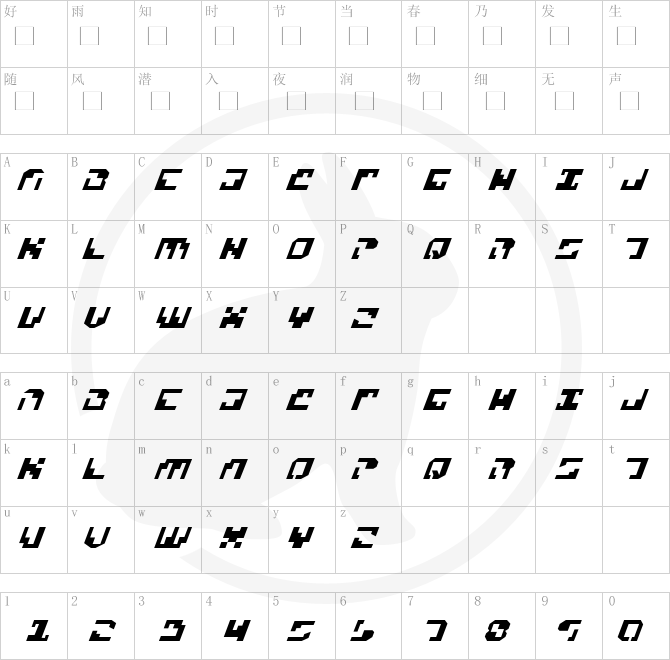
- Font Name:Xenophobia Italic
Xenophobia-Italic.ttf is a very beautiful artistic font, Xenophobia-Italic.ttf is widely used in the design and printing of various books and pictures,Xenophobia-Italic.ttf has a strong visual impact,Xenophobia-Italic.ttf is a commonly used font in newspapers, magazines and books, and is used in posters, e-commerce Poster design, store design, logo design, font design and other fields.Xenophobia-Italic.